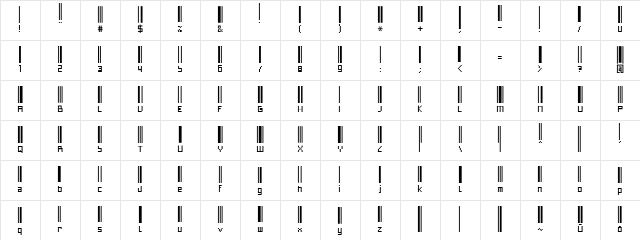
Paskowy Regular
Design Context for Paskowy
Paskowy is a composed and adaptable typeface that performs quietly and consistently across a wide range of design contexts.